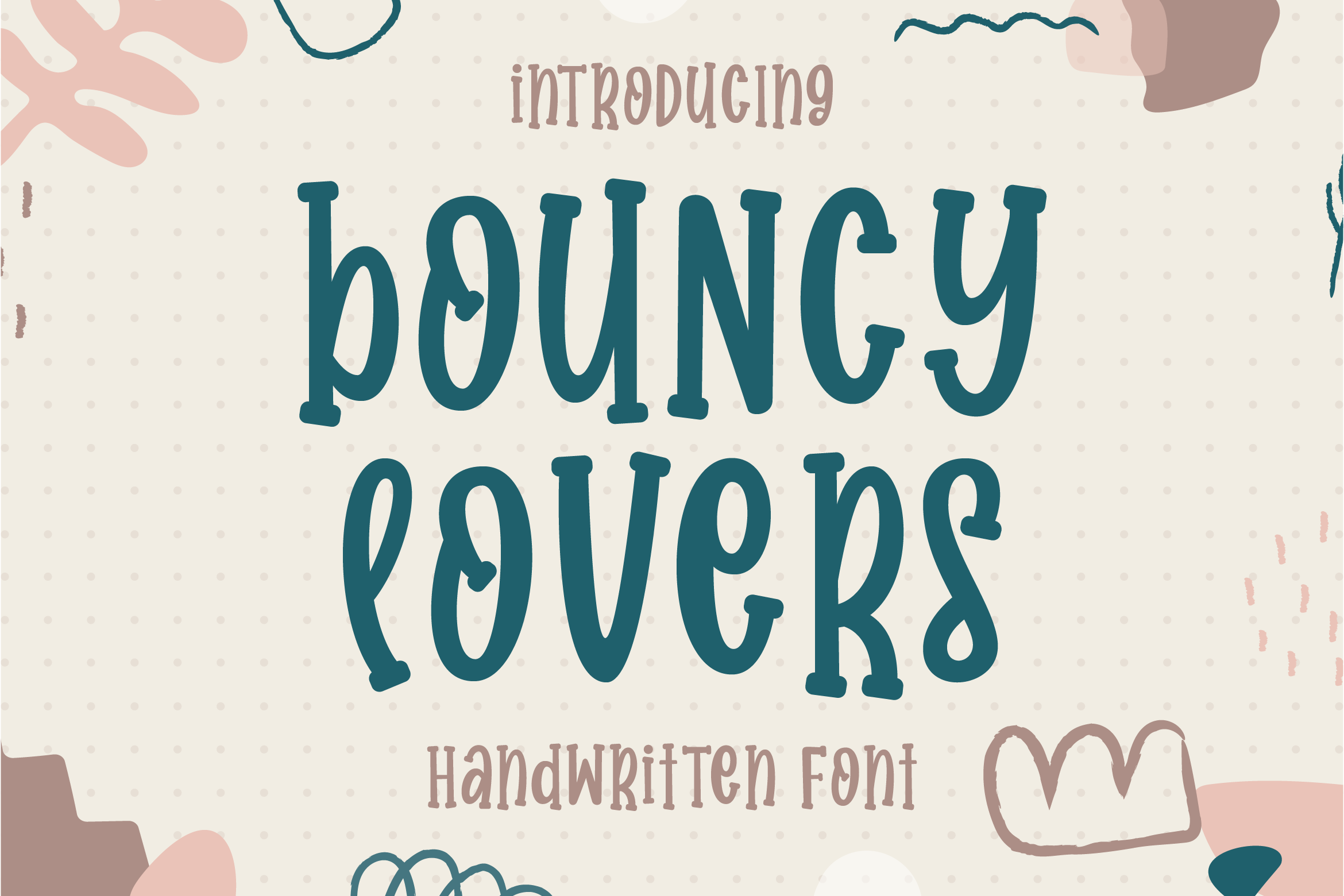
Bouncy Lovers - Cute And Fun Display Typeface Font
About Bouncy Lovers - Cute And Fun Display Typeface
Bouncy Lovers is a cute, friendly, and fun display font. Whether you’re using it for crafts, digital design, presentations, or making greeting cards, this font has the potential to become your favorite go-to font, no matter the occasion!